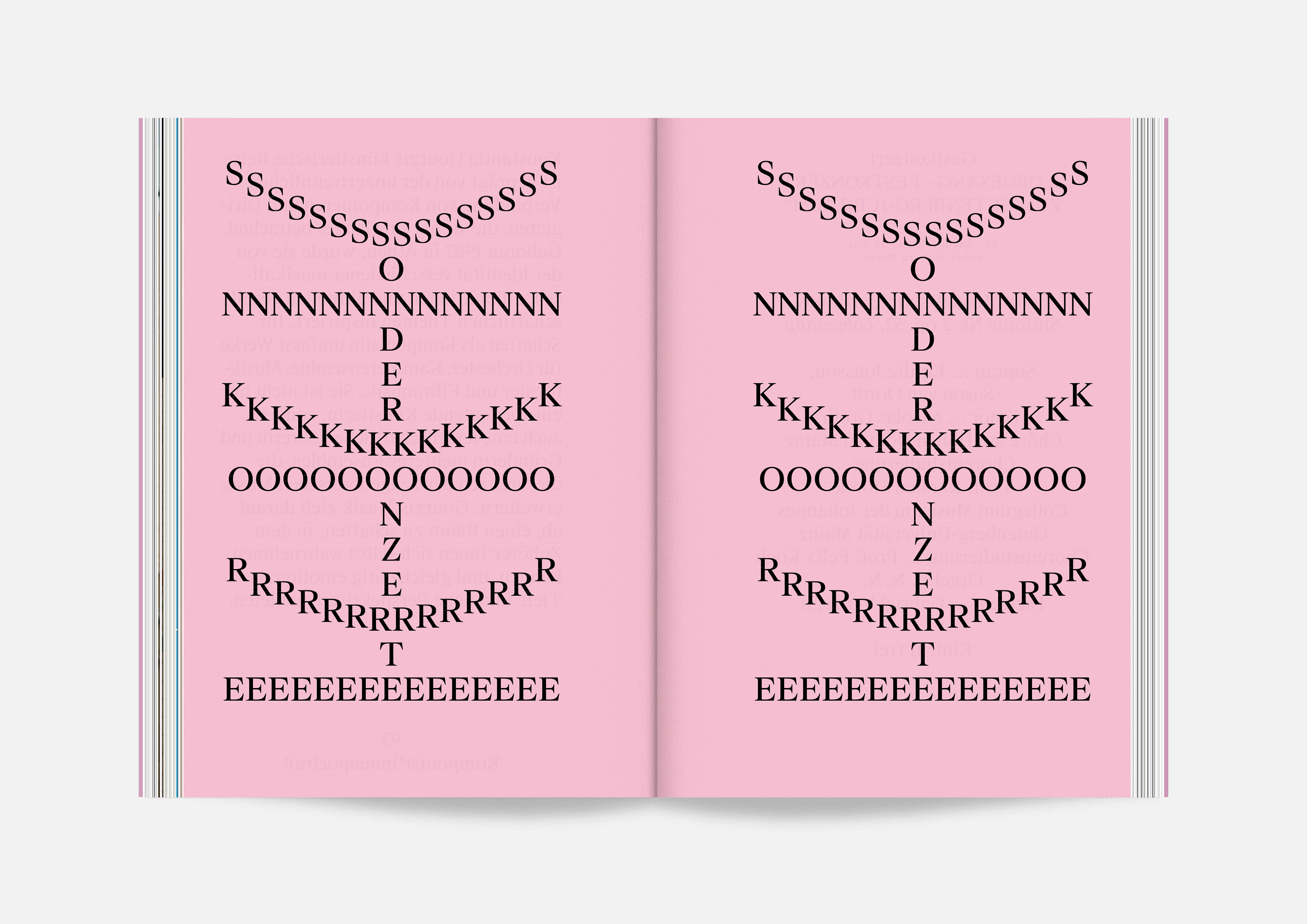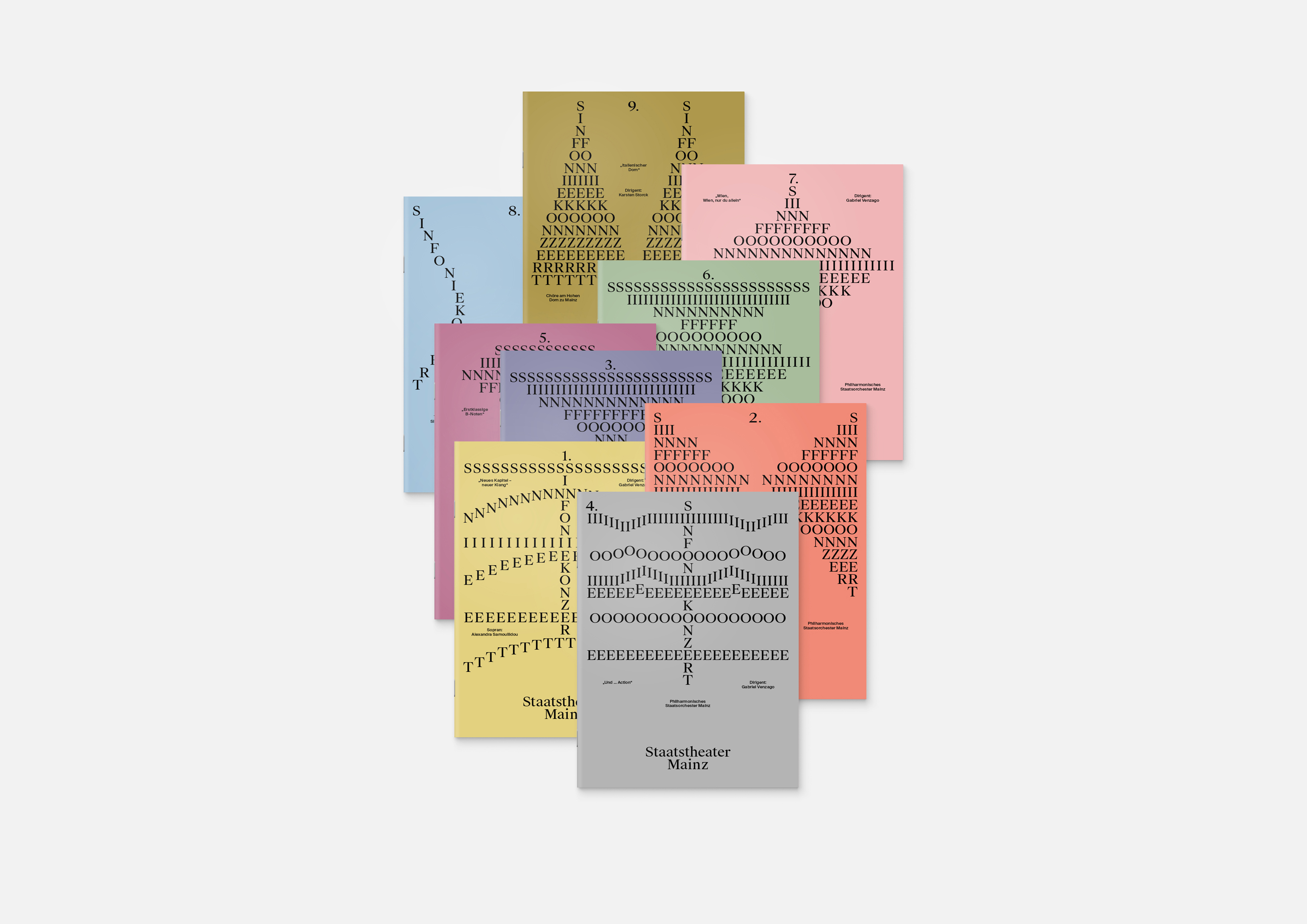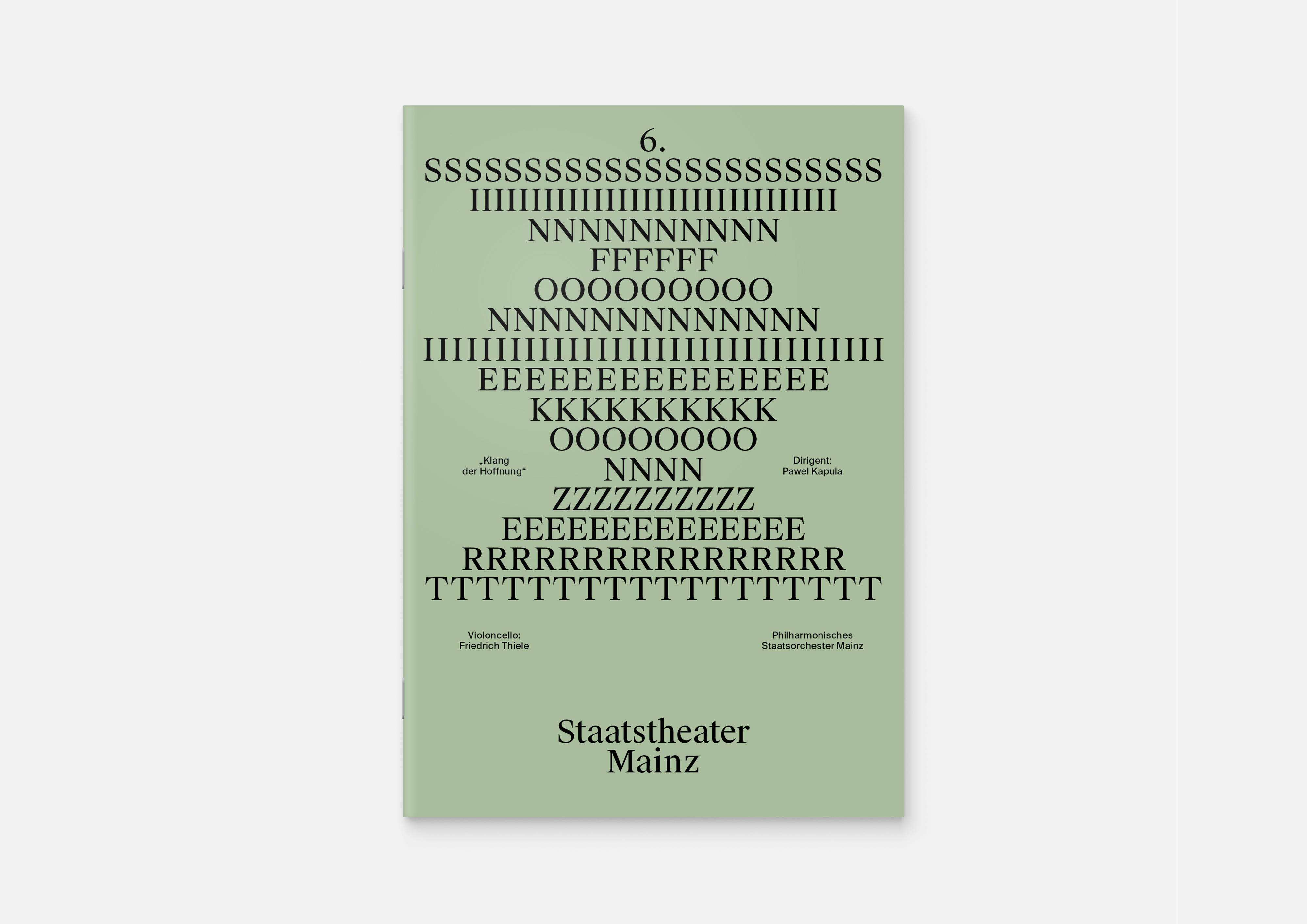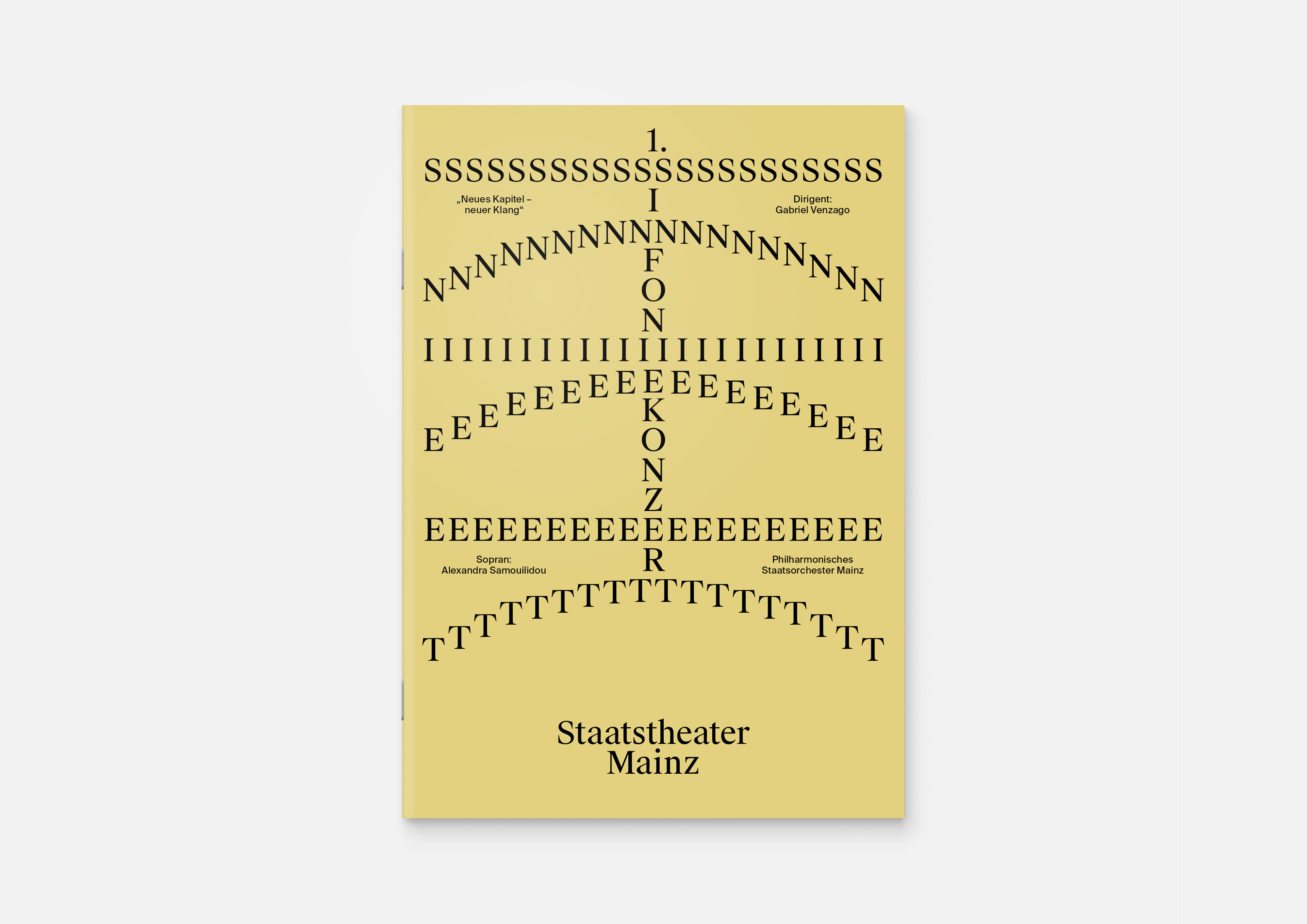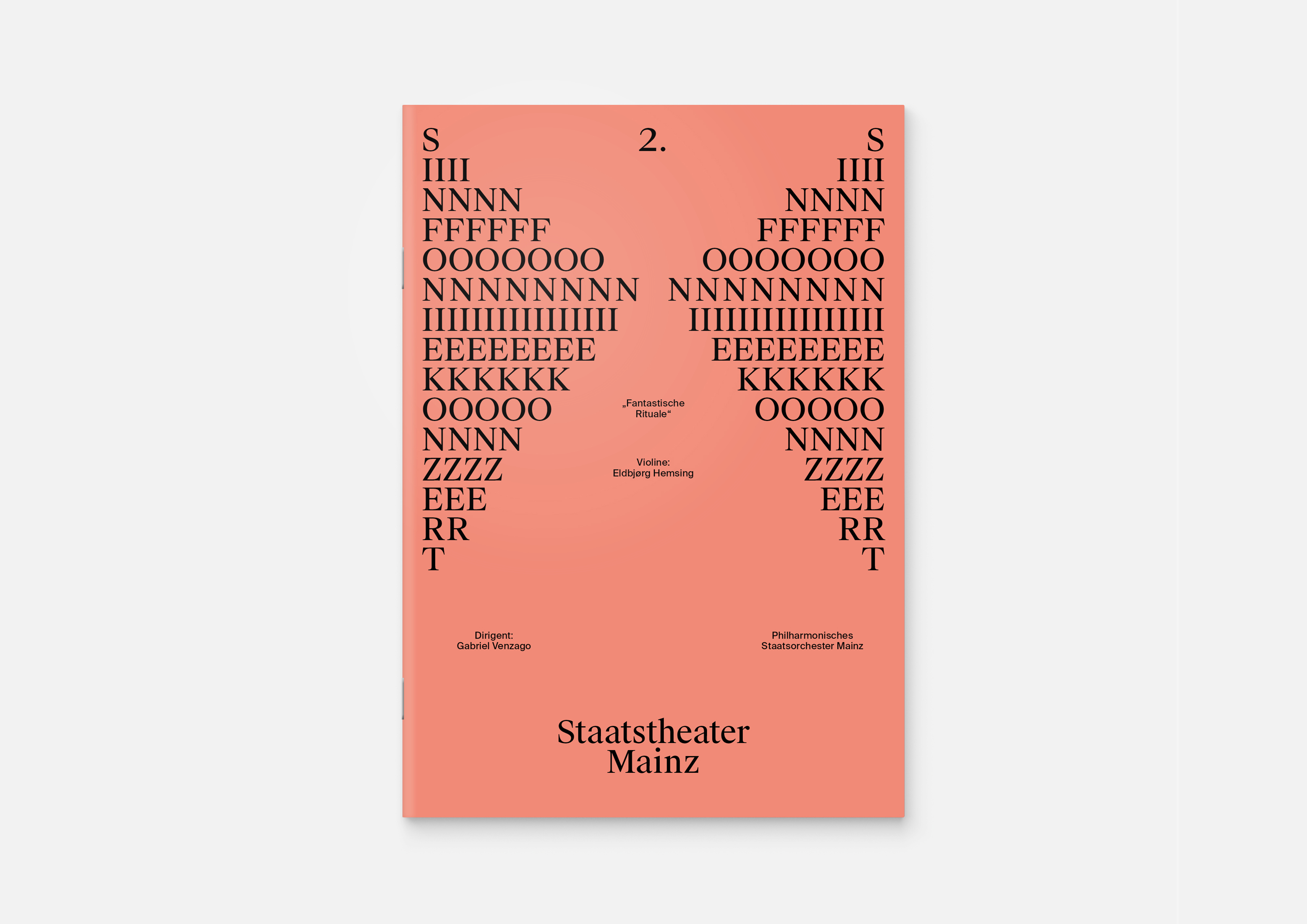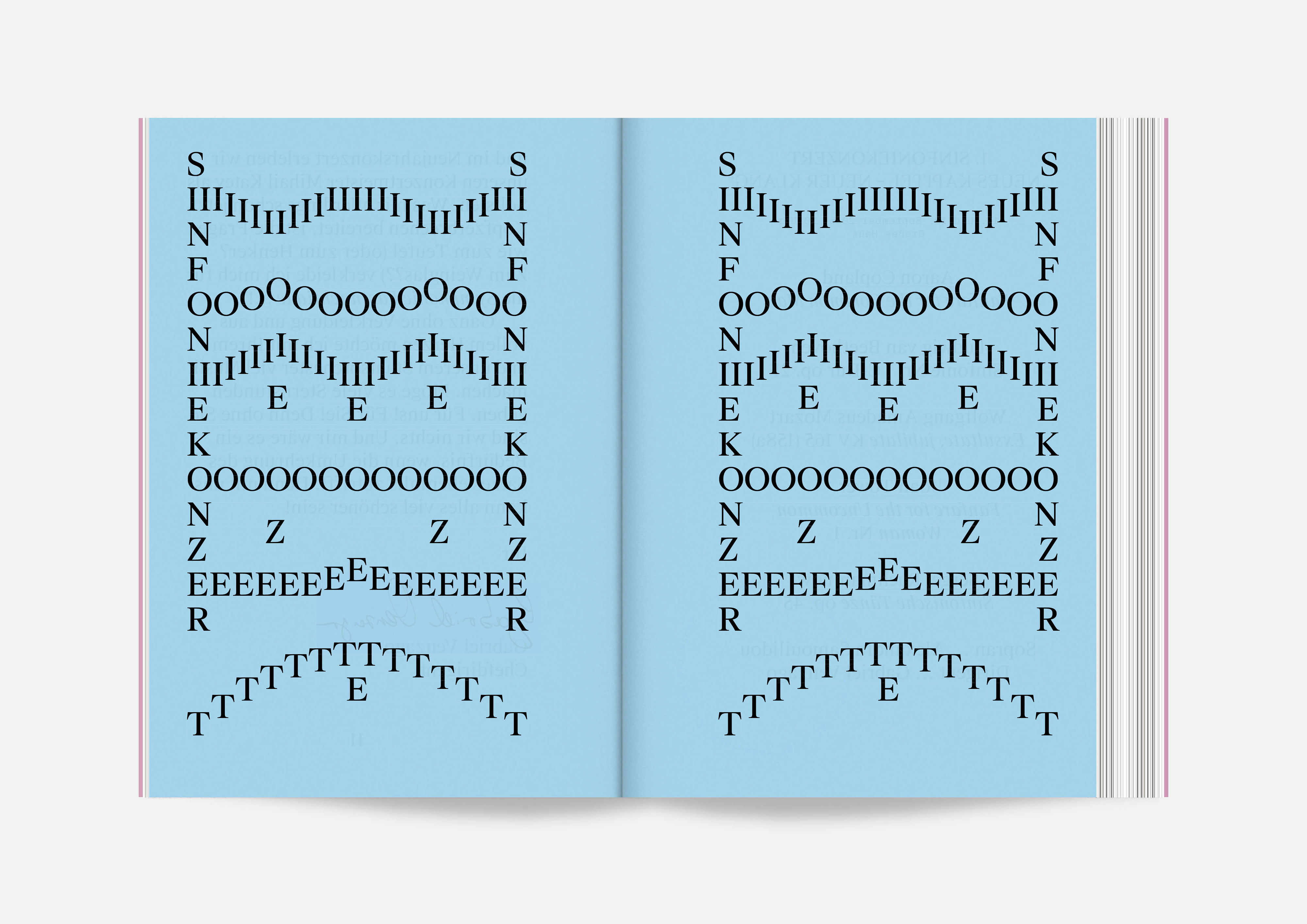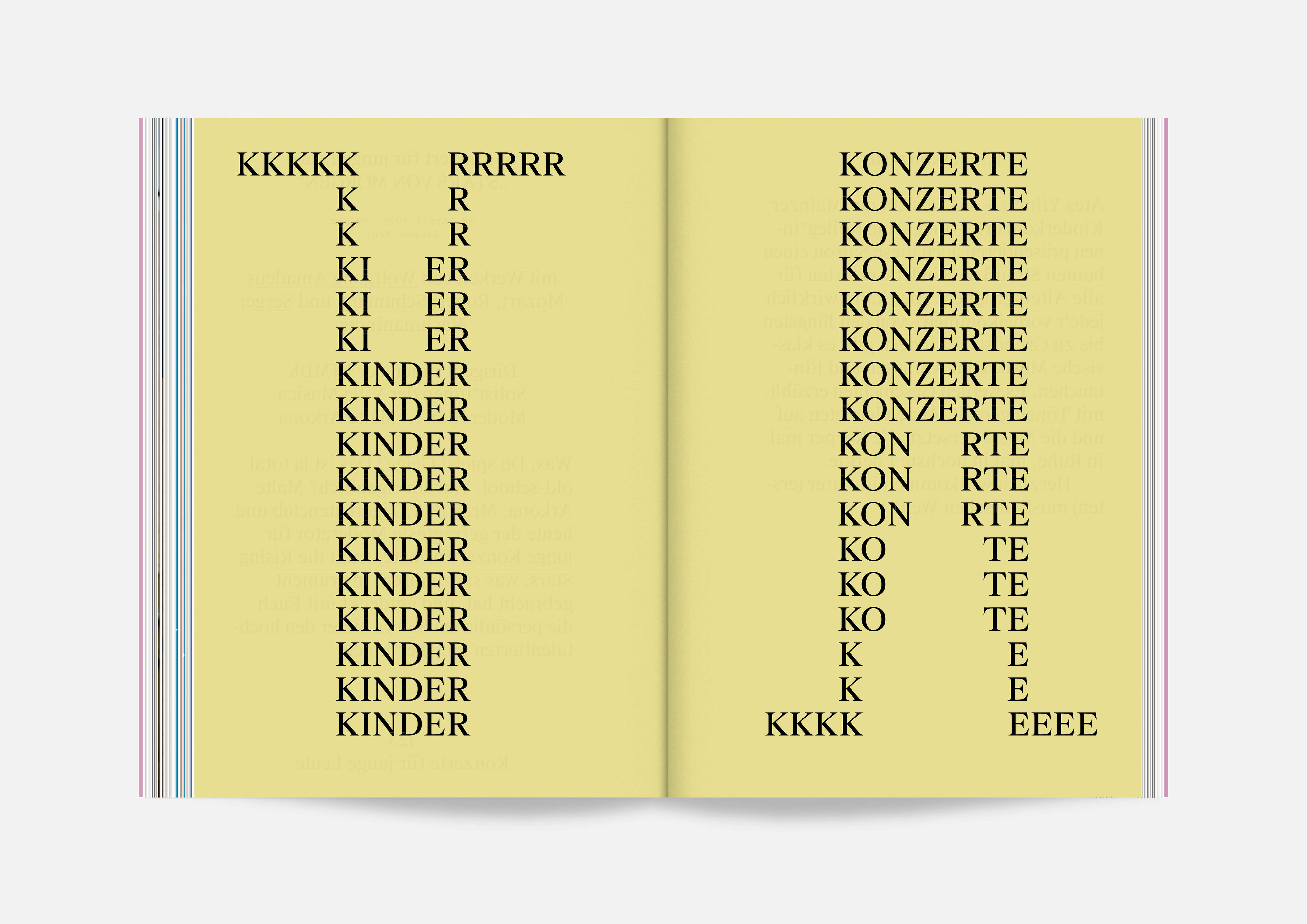
Concert Season 2025/26 – A New Chapter
Our visual concept for the season’s concerts translates musical change into a clear, contemporary design language applied consistently across brochures, posters, postcards, and programs. Precise typographic structures and bold, rhythmic compositions echo the energy and tension of symphonic music. Repeating patterns, arranged with orchestral precision, create a sense of movement that feels almost audible. Vibrant color fields add depth and dynamism, making musical intensity visually tangible. The design balances continuity and renewal within a unified visual system.
Music is translated into typographic compositions: rhythmic letterforms form abstract structures that echo orchestral movement. Bold color fields amplify this rhythm. Precision, symmetry, and variation ensure coherence across media, creating a strong seasonal identity beyond conventional concert communication.